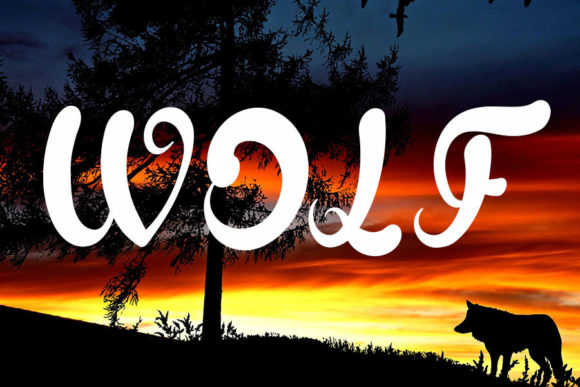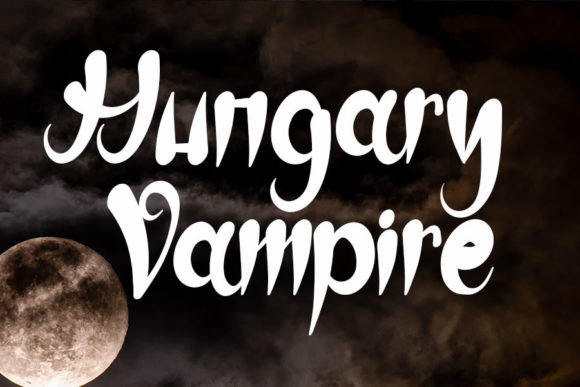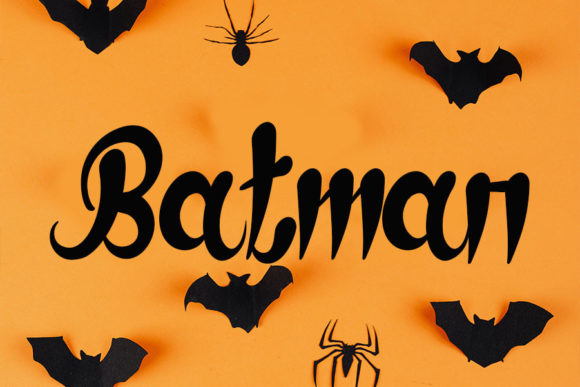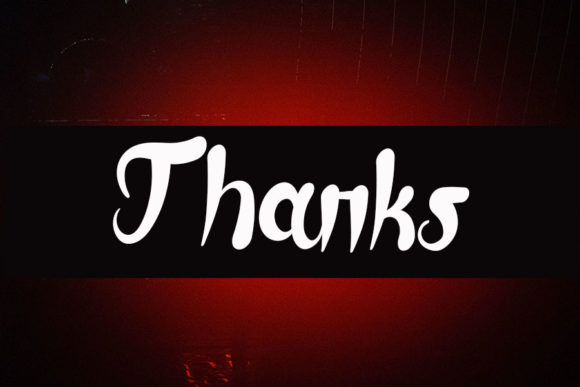
Vampire Font Font
About Vampire Font
Vampiire is a beautiful and versatile handwritten font with a unique feel and a stunning impact. It will add a lovely spark to any design or creative projects you have coming up.